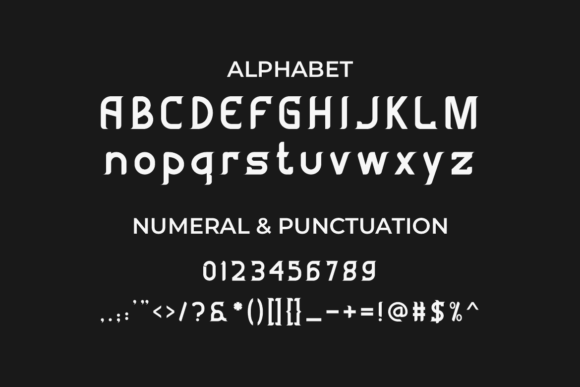
Introducing Abimochi Font: Elevate Your Creations with a Unique and Fancy Display Font
In the world of design, fonts play a crucial role in conveying the message and aesthetic of a project. Whether you’re a professional designer, a crafty DIY enthusiast, or a social media influencer, finding the right font can make all the difference. If you’re looking for a font that will take your creations to the next level, look no further than Abimochi Font. In this article, we’ll explore what makes Abimochi a standout font and how you can use it to elevate your designs.
What is Abimochi Font?
Abimochi is a unique and fancy display font that is perfect for designers and crafters who want to add a touch of elegance and sophistication to their work. This trendy and stylish font is designed to make a statement, and its versatility makes it suitable for a wide range of projects, from logos and branding to social media graphics, posters, and more.
Key Features of Abimochi Font
So, what makes Abimochi Font so special? Here are some of its key features:
- Unique and Fancy: Abimochi Font has a distinctive and eye-catching design that will set your creations apart from the rest.
- Trendy and Stylish: This font is perfect for designers who want to stay on top of the latest trends and styles.
- Display Font: Abimochi is specifically designed as a display font, making it ideal for headlines, titles, and other prominent text elements.
- Versatile: Whether you’re working on a logo, a poster, or a social media graphic, Abimochi Font can be used in a variety of projects.
How to Use Abimochi Font in Your Designs
Now that we’ve covered the basics of Abimochi Font, let’s talk about how to use it in your designs. Here are some ideas to get you started:
- Logos and Branding: Use Abimochi Font to create a unique and memorable logo that will help your brand stand out.
- Social Media Graphics: Add a touch of elegance and sophistication to your social media graphics with Abimochi Font.
- Posters and Flyers: Use Abimochi Font to create eye-catching headlines and titles for your posters and flyers.
- Wedding and Event Stationery: Abimochi Font is perfect for wedding and event stationery, such as invitations, save-the-dates, and thank-you cards.
Tips for Getting the Most Out of Abimochi Font
To get the most out of Abimochi Font, here are some tips to keep in mind:
- Use it Sparingly: Because Abimochi Font is a display font, it’s best to use it sparingly to avoid overwhelming your design.
- Pair it with Other Fonts: Experiment with pairing Abimochi Font with other fonts to create a unique and visually appealing combination.
- Play with Colors: Abimochi Font looks great in a variety of colors, so don’t be afraid to experiment and find the perfect hue for your design.
In conclusion, Abimochi Font is a unique and fancy display font that is perfect for designers and crafters who want to elevate their creations. With its trendy and stylish design, Abimochi Font is sure to make a statement in any project. Whether you’re working on a logo, a poster, or a social media graphic, Abimochi Font is a versatile and elegant choice. So why wait? Download Abimochi Font today and take your designs to the next level!